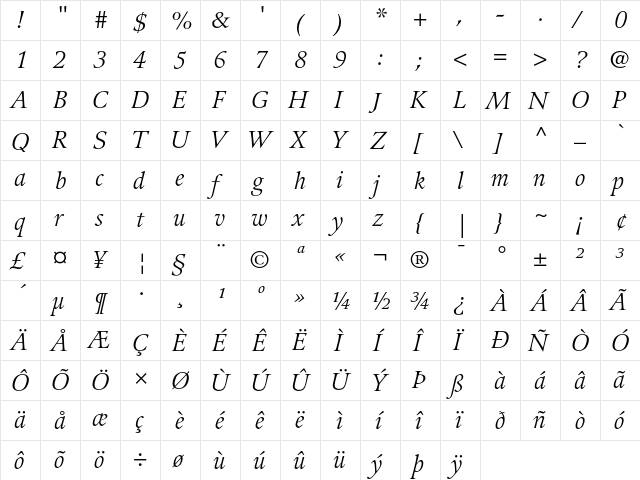
Guardi 56 Italic
Design Context for Guardi Typeface
Guardi takes a measured approach to typography — its balanced proportions and neutral character make it a reliable workhorse for both digital and print work. Its italic angle brings a sense of urgency and motion to the letterforms.
Pro Tip: Use Guardi for emphasis, pull quotes, and subheadings where its slanted energy can add rhythm to the layout.